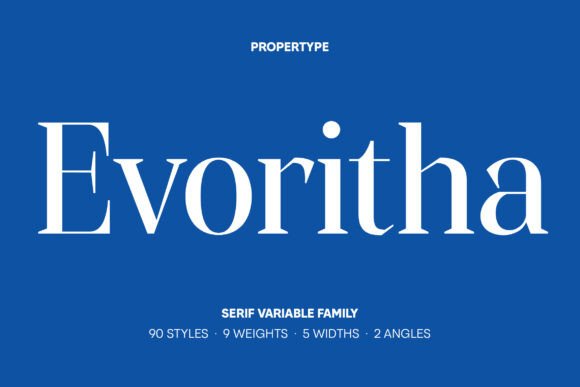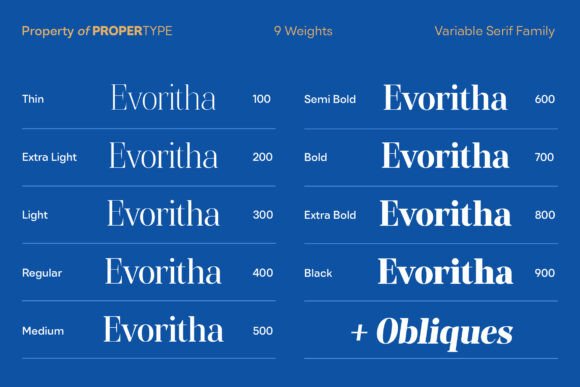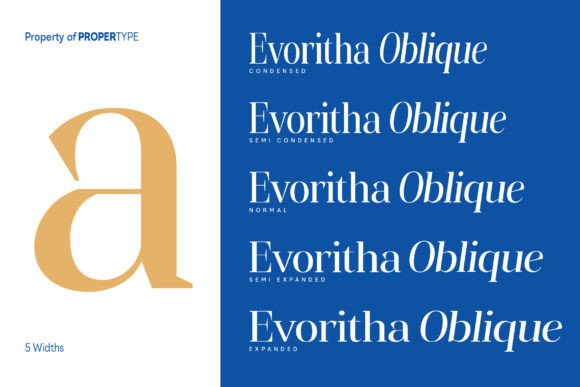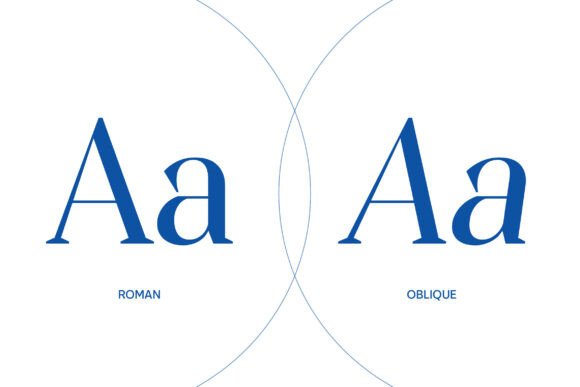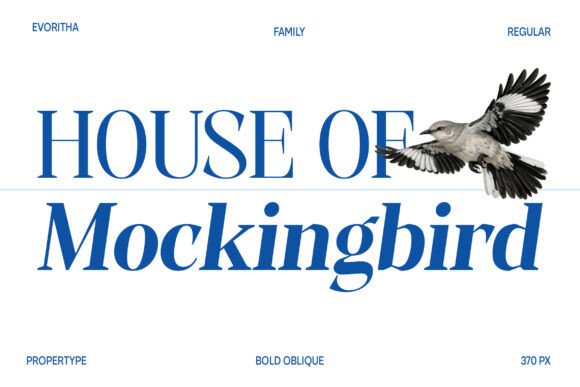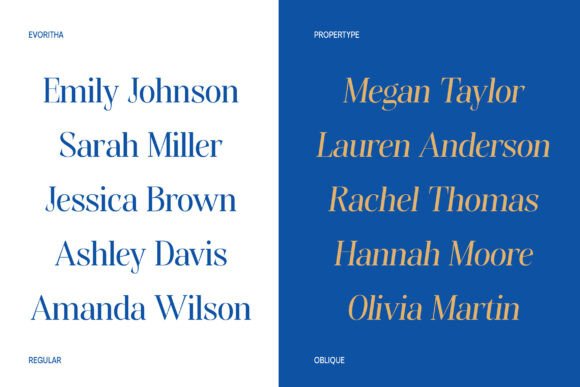
Introducing Evoritha Font: Elevate Your Typography with Elegance
In the world of typography, fonts play a crucial role in conveying messages, expressing emotions, and creating lasting impressions. For designers, crafters, and typography enthusiasts, finding the perfect font can be a daunting task. However, if you’re looking for a font that exudes elegance, sophistication, and uniqueness, look no further than Evoritha Font. In this article, we’ll delve into the world of Evoritha, exploring its features, benefits, and applications, and why it’s a must-have for any designer or crafter.
The Birth of Evoritha: A Harmonious Blend of Geometry and Curves
Evoritha Serif is a highly refined serif font that boasts a distinctive character, setting it apart from other fonts in the typography landscape. Its uniqueness lies in the harmonious blend of geometric shapes and graceful curved elements. This fusion of styles results in a font that is both modern and classic, making it suitable for a wide range of applications, from luxury branding to elegant stationery.
What Makes Evoritha Stand Out?
Evoritha’s standout feature is its ability to balance geometric precision with elegant curves. This balance creates a sense of sophistication and refinement, making it perfect for designs that require a touch of luxury. The font’s serifs are carefully crafted to add a level of elegance, while its geometric elements provide a sense of modernity. Whether you’re designing a logo, brochure, or website, Evoritha is sure to elevate your typography to new heights.
Key Features of Evoritha Font
- Unique Character: Evoritha’s blend of geometric shapes and curved elements creates a distinctive character that sets it apart from other fonts.
- Elegant Serifs: The font’s serifs are carefully crafted to add a level of sophistication and refinement to your designs.
- Geometric Precision: Evoritha’s geometric elements provide a sense of modernity and precision, making it perfect for designs that require a touch of luxury.
- Versatility: Evoritha is suitable for a wide range of applications, from luxury branding to elegant stationery, and can be used for both digital and print projects.
Applications of Evoritha Font
Evoritha’s versatility makes it suitable for a wide range of applications, including:
- Luxury Branding: Evoritha’s elegant and sophisticated design makes it perfect for luxury brands looking to create a lasting impression.
- Elegant Stationery: The font’s refined serifs and geometric elements make it ideal for designing elegant stationery, including business cards, letterheads, and envelopes.
- Digital Design: Evoritha can be used for digital projects, such as website design, social media graphics, and email marketing campaigns.
Tips for Using Evoritha Font
To get the most out of Evoritha, here are some tips for using the font:
- Pair with Other Fonts: Evoritha can be paired with other fonts to create a unique and visually appealing typography combination.
- Experiment with Colors: The font’s elegance and sophistication make it suitable for use with a range of colors, from bold and bright to muted and pastel.
- Pay Attention to Kerning: As with any font, pay attention to kerning to ensure that your text is evenly spaced and visually appealing.
In conclusion, Evoritha Font is a highly refined serif font that exudes elegance, sophistication, and uniqueness. Its harmonious blend of geometric shapes and curved elements makes it a standout in the world of typography. Whether you’re a designer, crafter, or typography enthusiast, Evoritha is a must-have font that can elevate your designs to new heights. With its versatility, key features, and applications, Evoritha is sure to become a favorite in your typography arsenal.